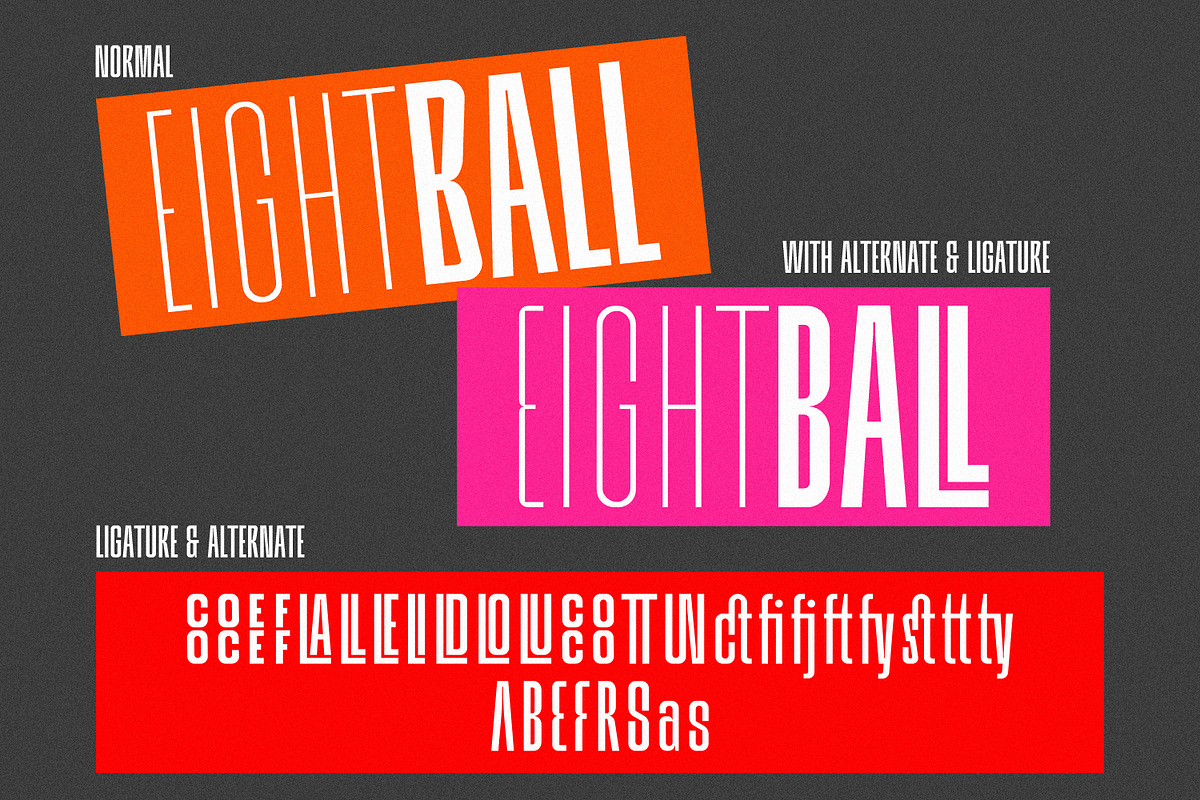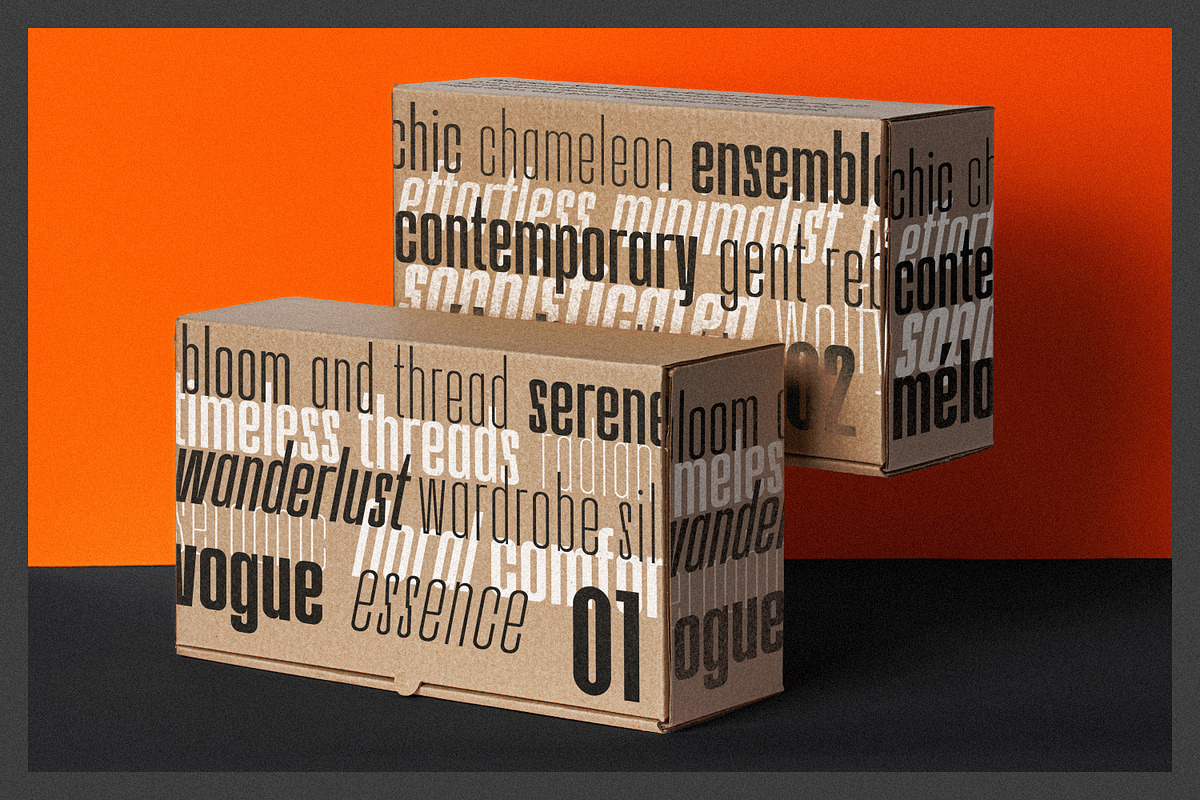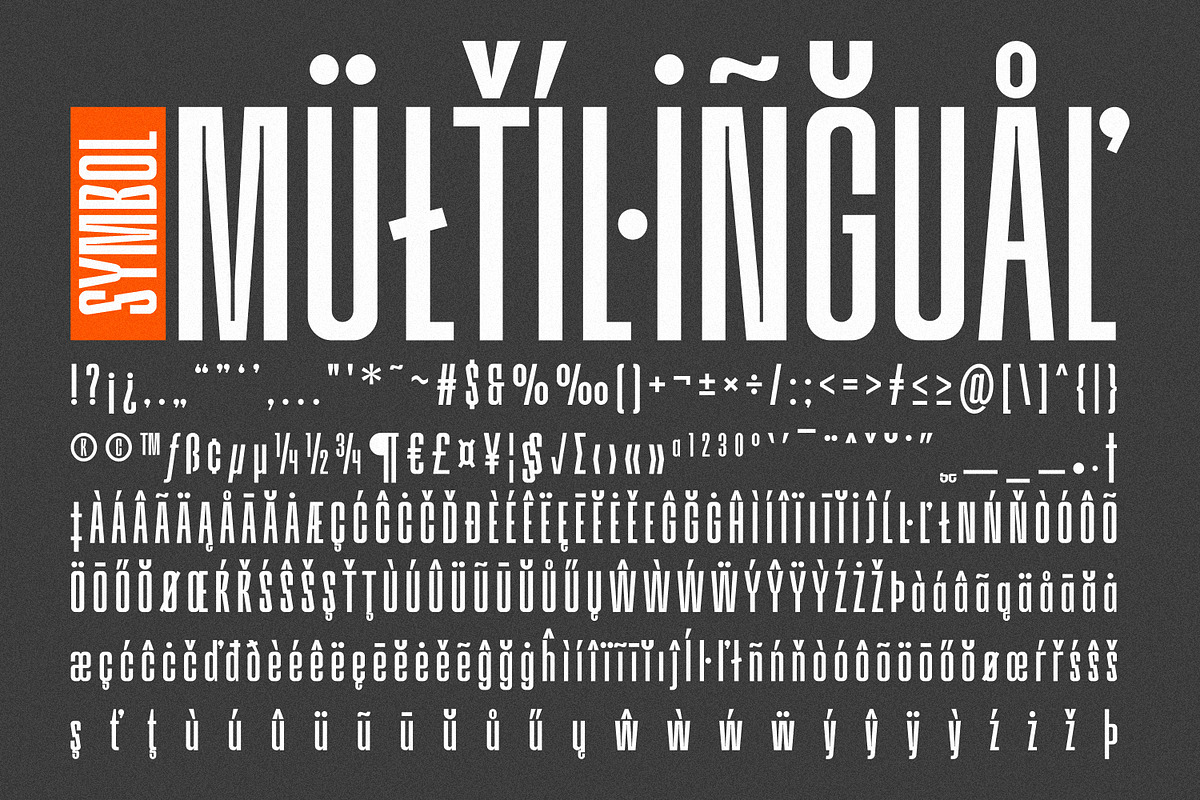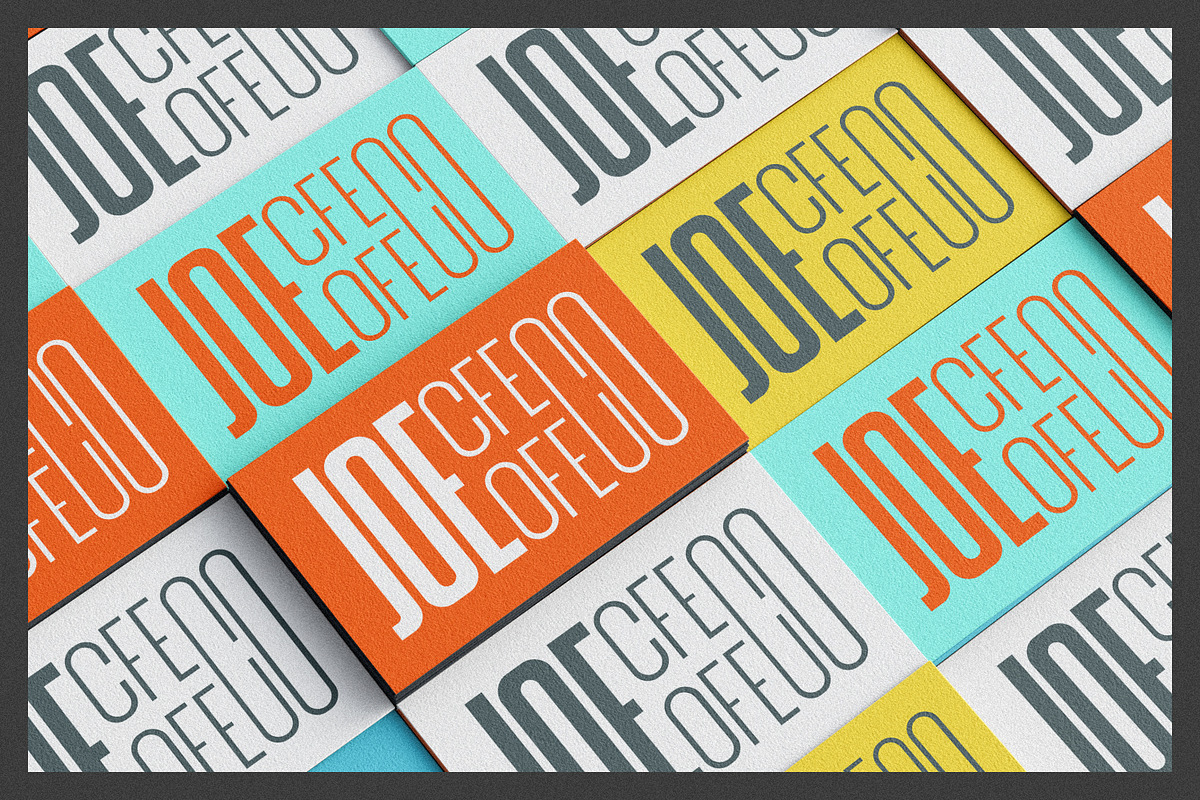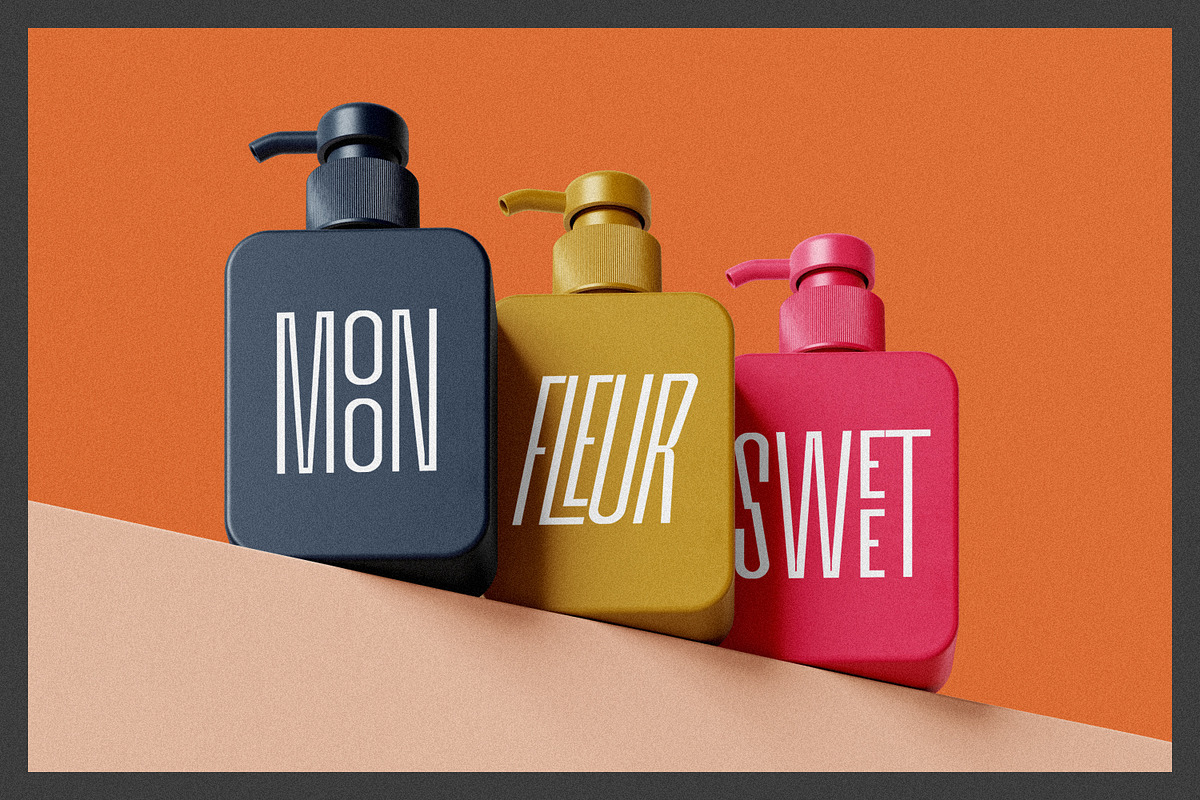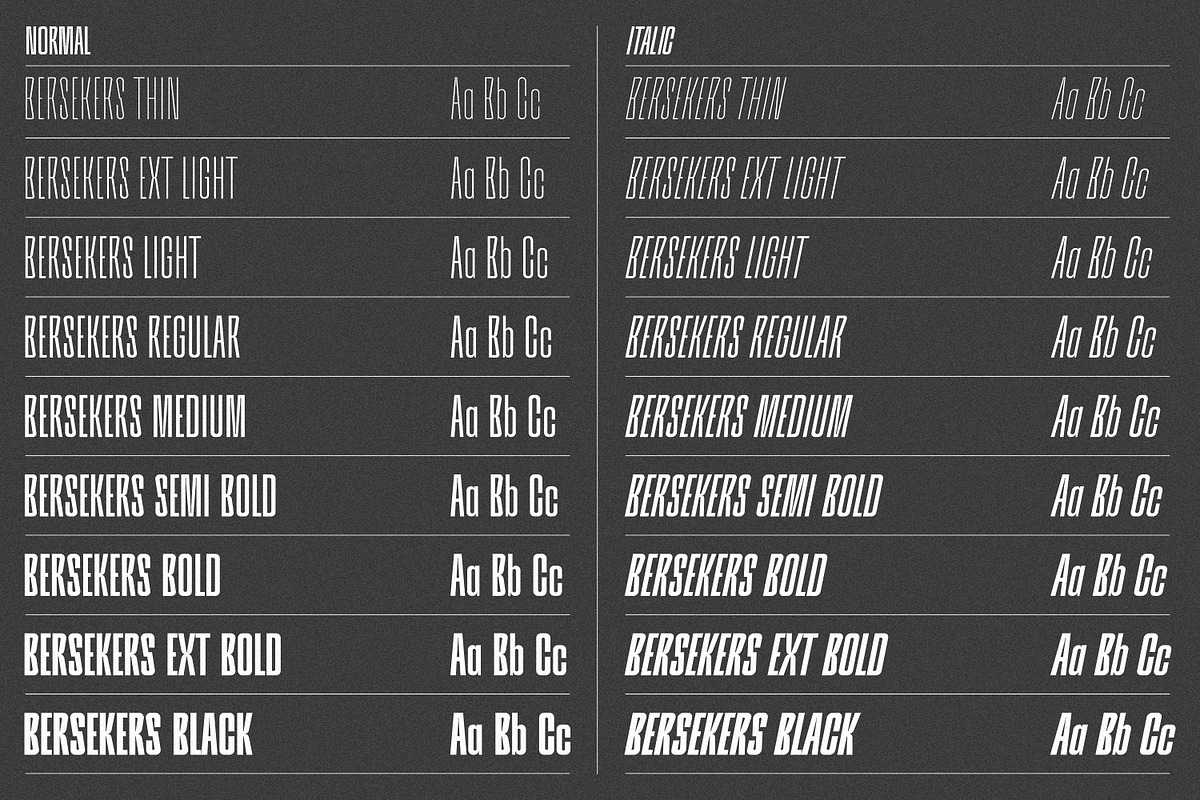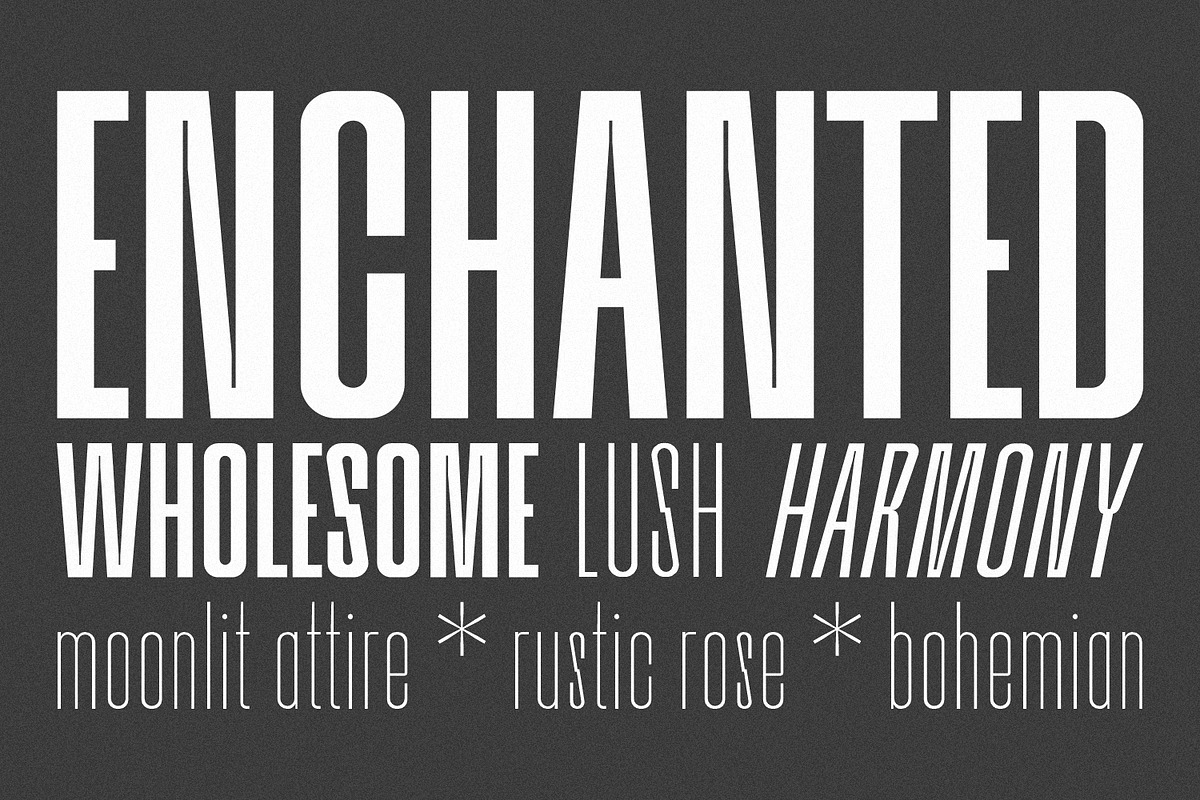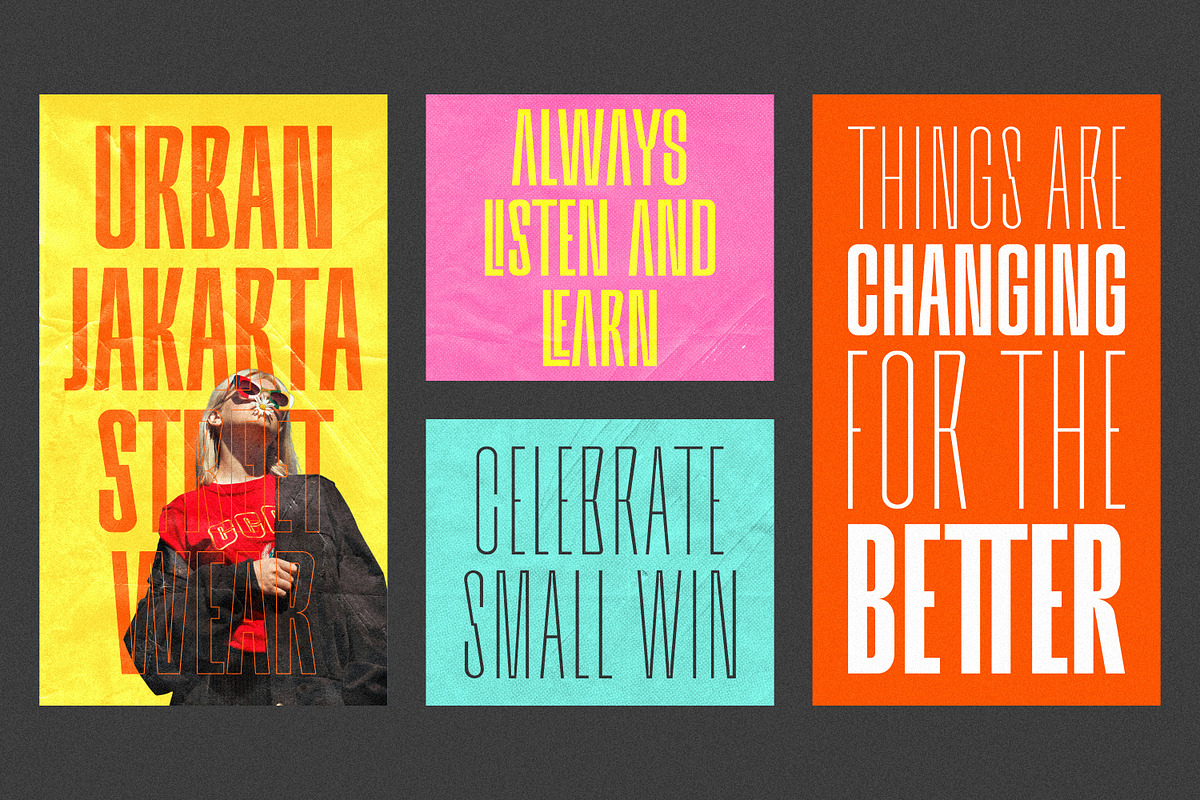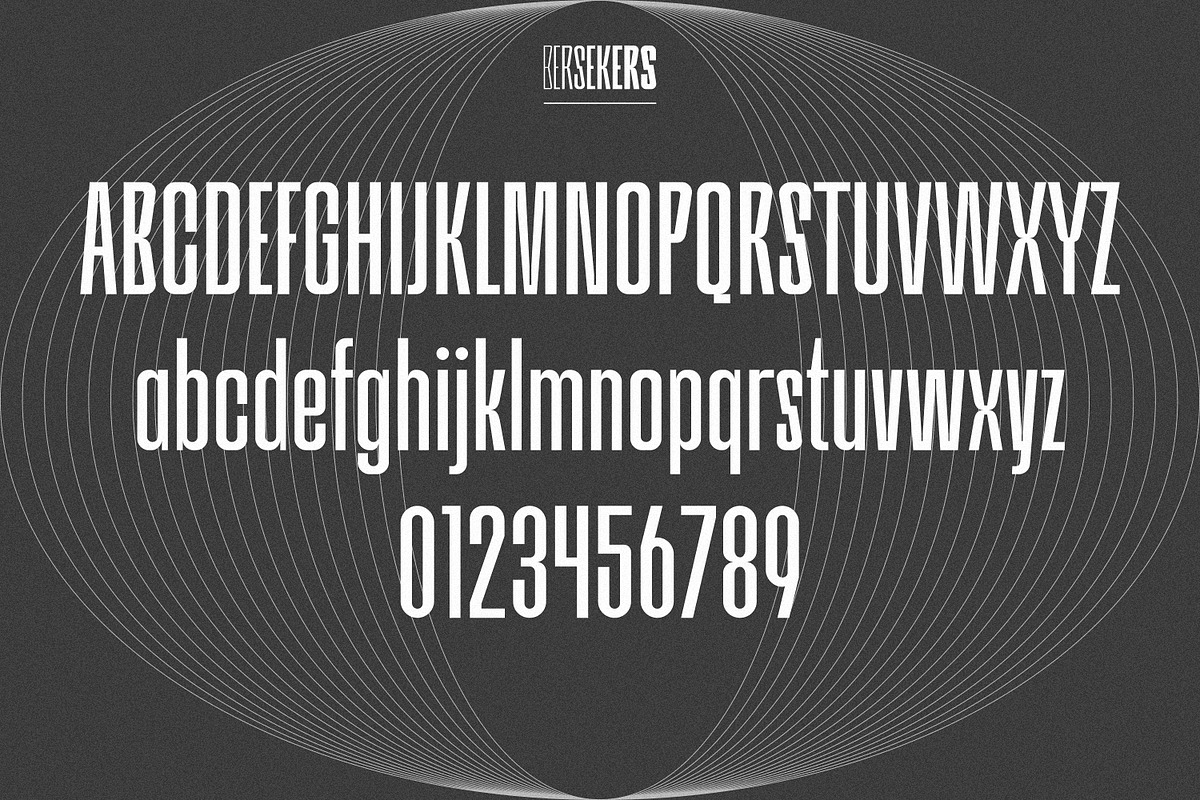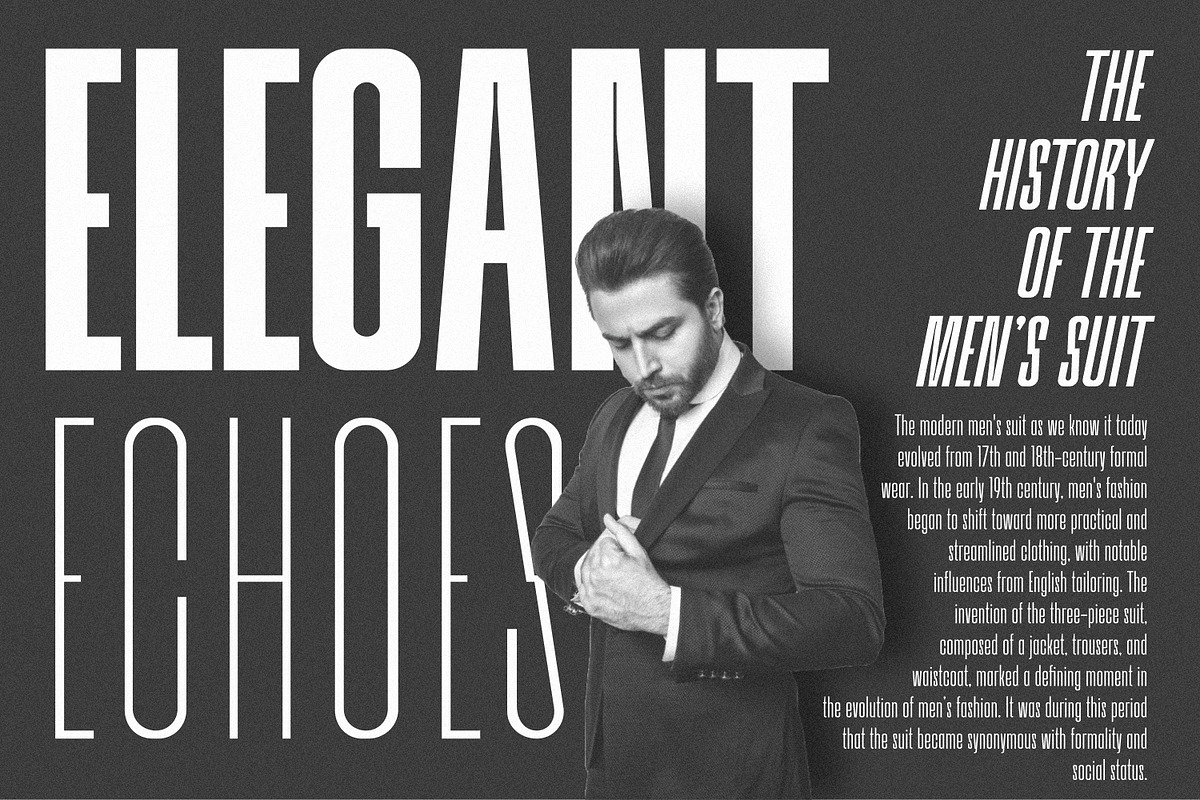
Bersekers Family - Condensed Sans
Bersekers is a modern condensed sans serif font family consisting of 9 weights over 18 normal and italic fonts. You can use it to convey the perfect design balance between modern and strong. Bersekers is the epitome of elegance and functionality Whether you're creating headlines, logos, packaging, or web designs, this font's compact structure ensures a visually striking impact that commands attention
Bersekers font features: